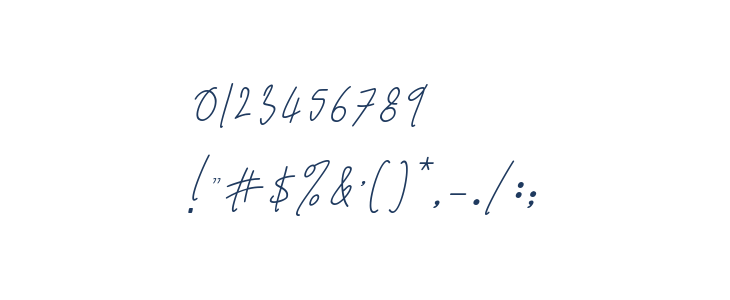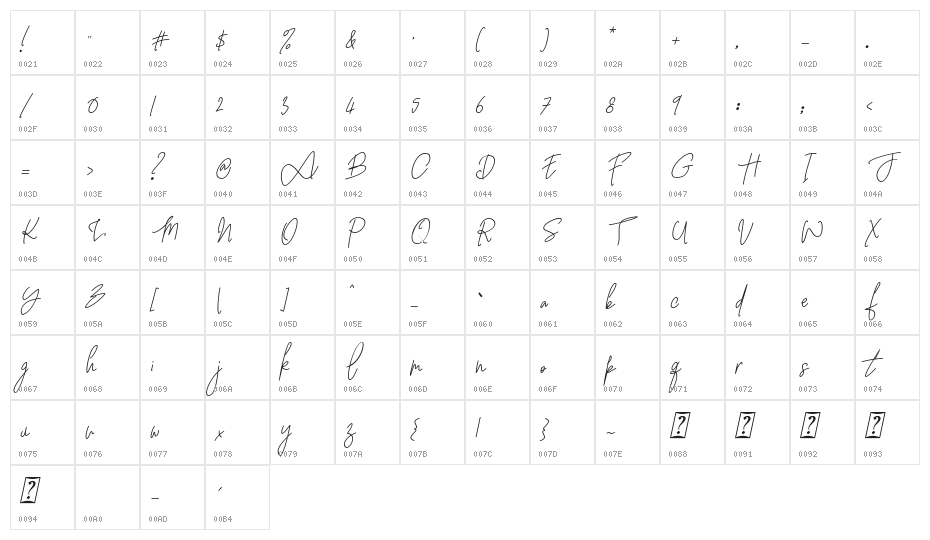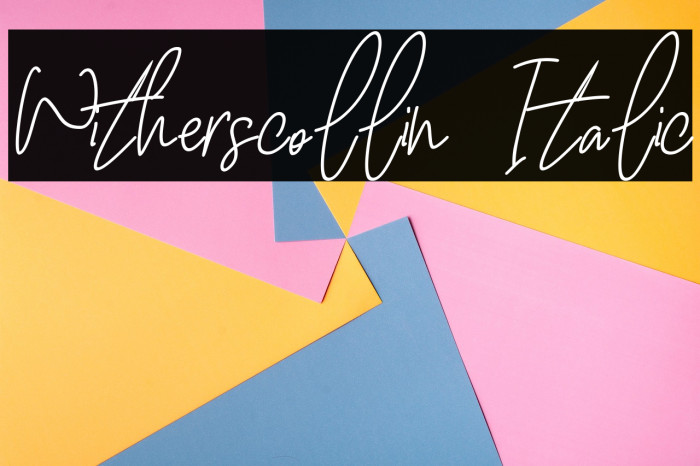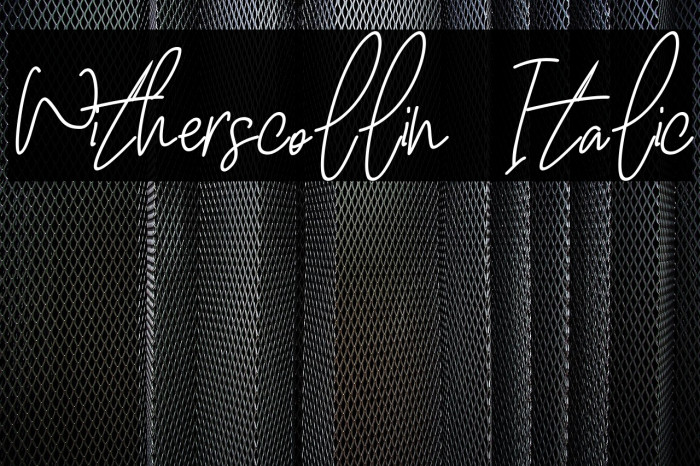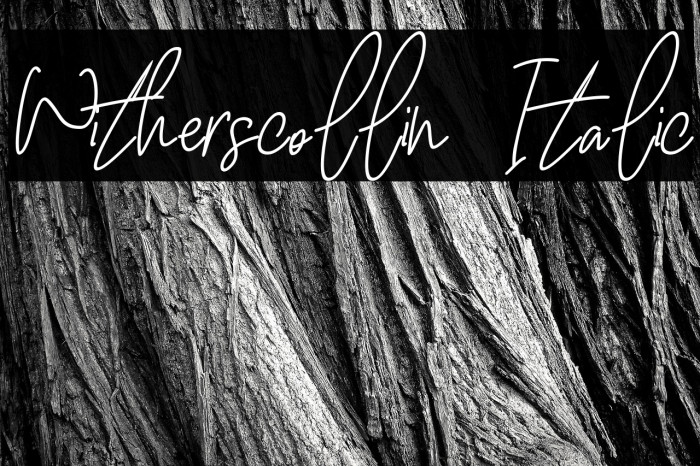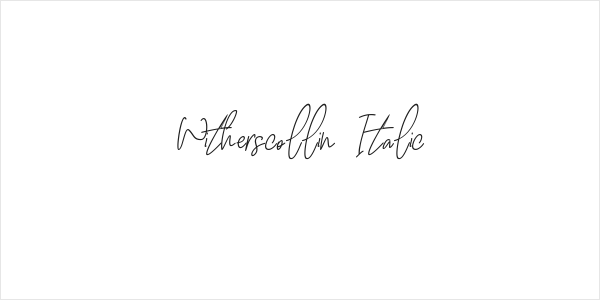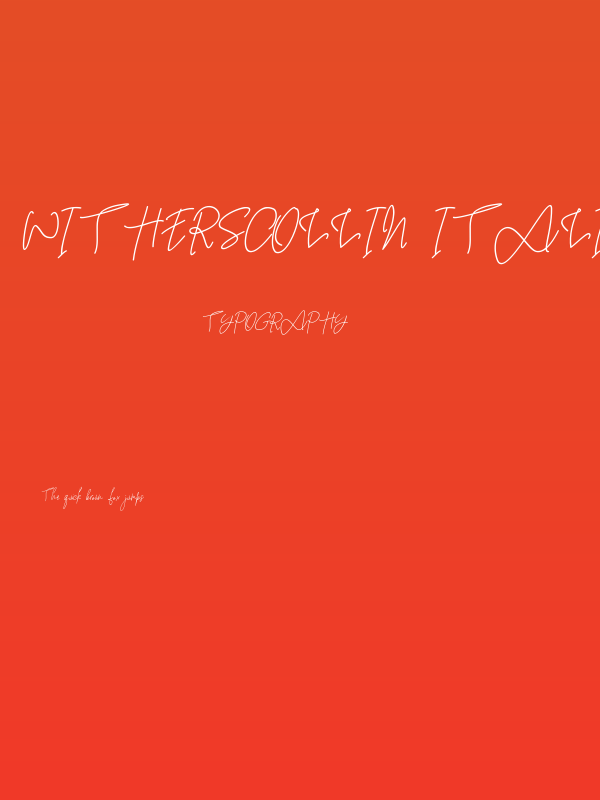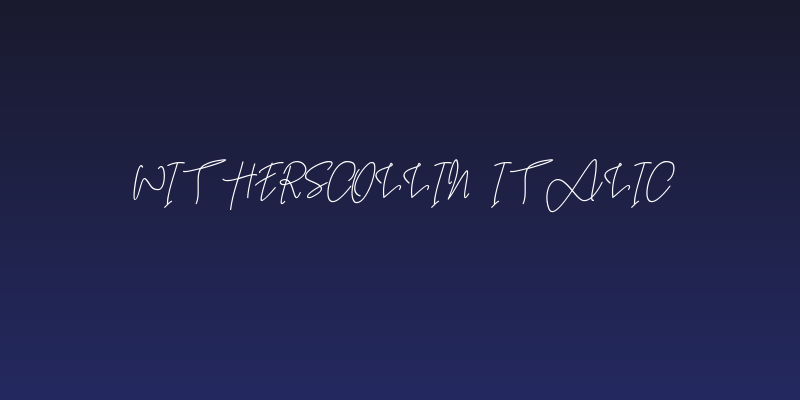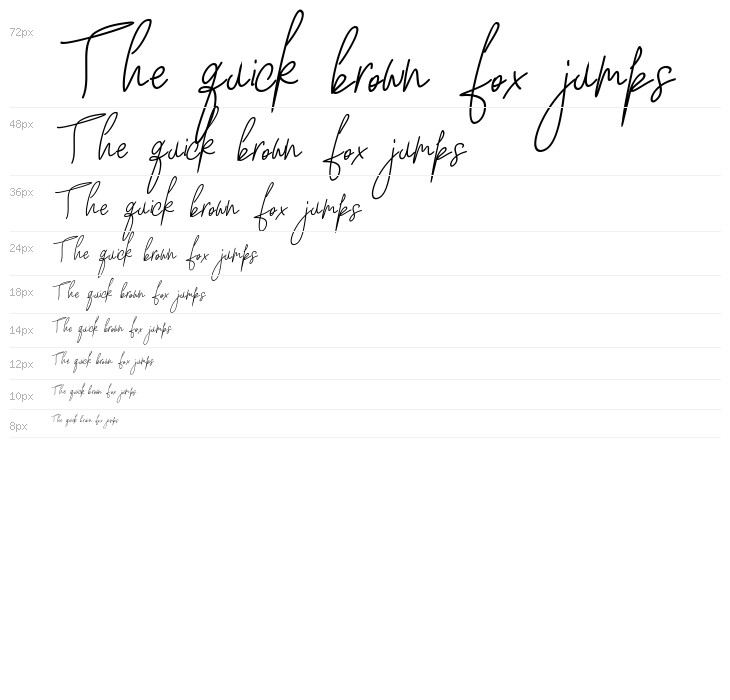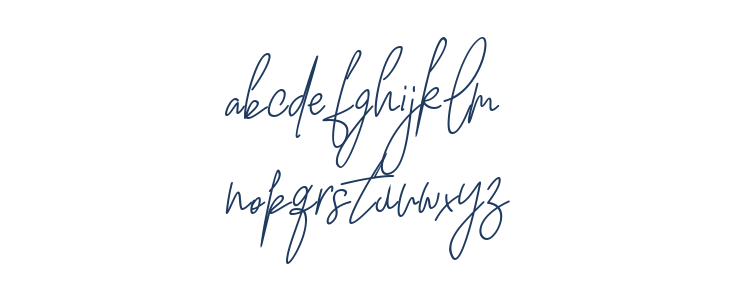
Witherscollin Italic Font
Witherscollin Italic Description
This font features a flowing, cursive style with a distinctly handwritten appearance. The letters are elegantly connected, creating a sense of fluidity and movement. The strokes are thin and consistent, giving the font a delicate and sophisticated look. The uppercase letters are slightly more elaborate, with some featuring loops and swirls that add a touch of flair. The lowercase letters maintain a more straightforward, yet still stylish, form. This font includes a full set of numerals and a variety of special characters, all maintaining the same cursive style. The overall impression is one of elegance and grace, making it suitable for projects that require a personal or artistic touch.